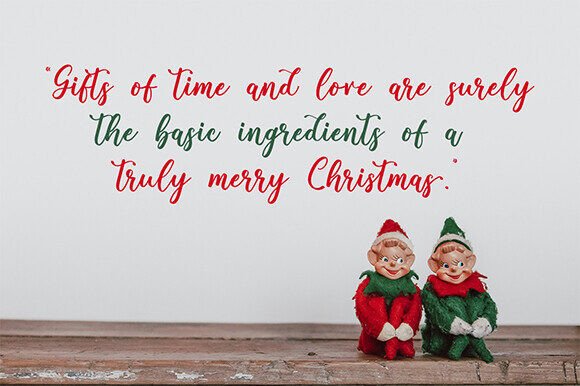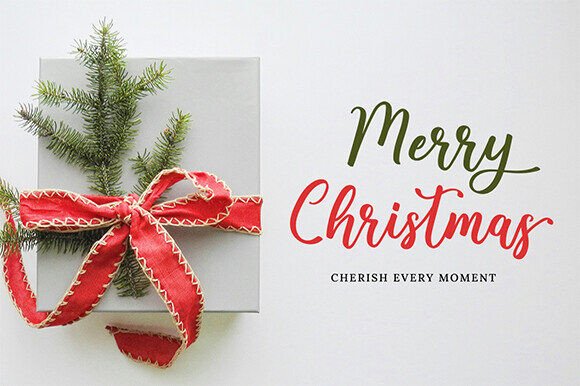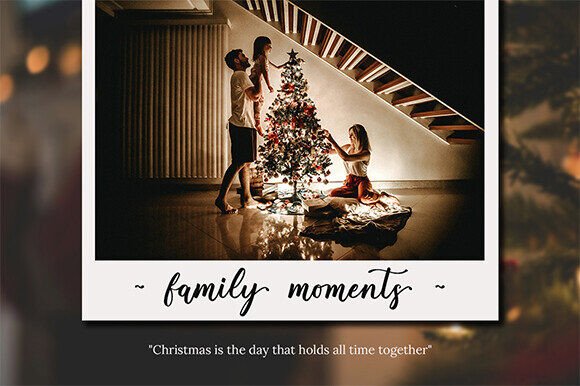
Introduction to Christmas Serenity Font
Christmas Serenity is a delightful calligraphy-style font that captures the warmth and joy of the Christmas season.
Its elegant, flowing strokes and festive charm make it perfect for holiday cards, seasonal invitations, decorative prints, and more Let the spirit of Christmas shine through your designs with the enchanting touch of Christmas Serenity.